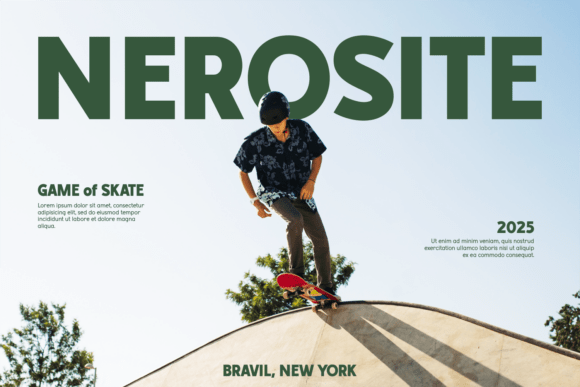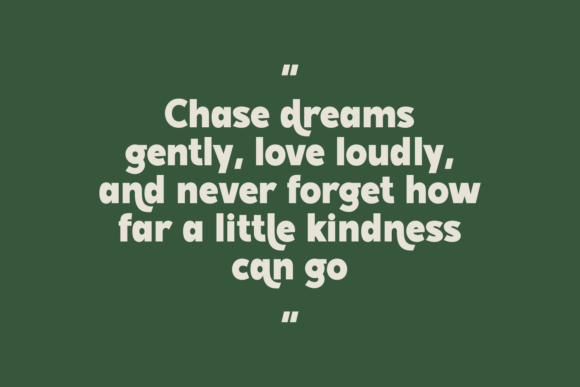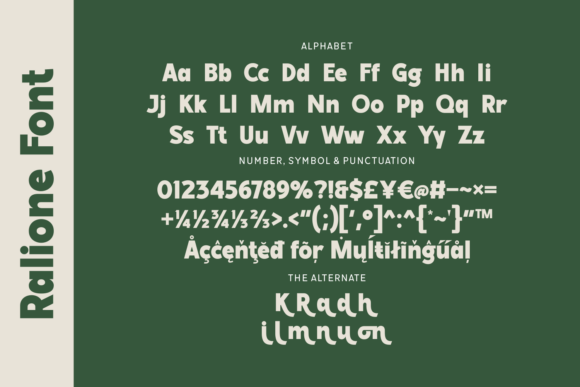
Introduction to Ralione Font
A promotional image for “Ralione,” a sans serif display typeface released in 2025.
“Ralione” features a distinct retro-inspired or “groovy” style with chunky letterforms and unique alternates, making it a stylish choice for branding, headlines, and logos .
Key Features of Ralione Font